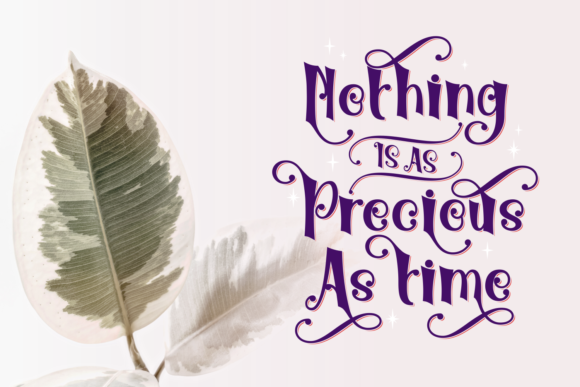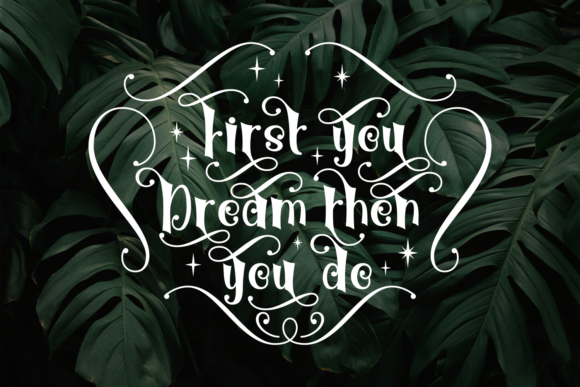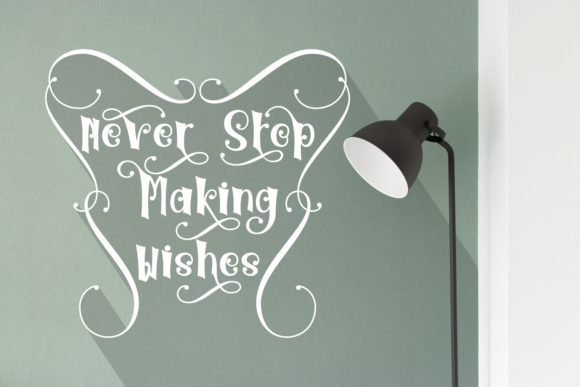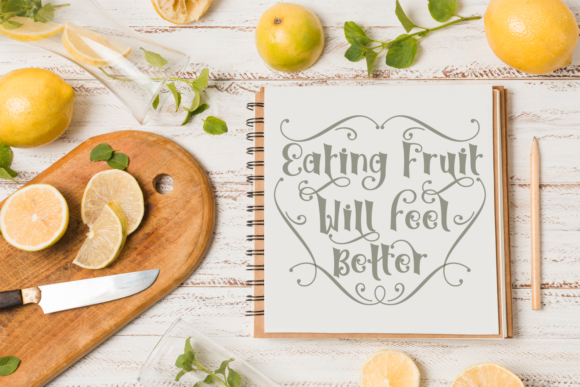
Unleash Your Creativity with Beat the Ordinary Font
Are you tired of using the same old fonts in your designs? Do you want to add a touch of uniqueness and personality to your projects? Look no further than the Beat the Ordinary Font! This playful, yet bold display font is perfect for designers and crafters who want to take their work to the next level.
What is Beat the Ordinary Font?
Beat the Ordinary is a modern display font that is designed to make a statement. With its bold and playful style, it’s perfect for adding a unique feel to any design idea. The font comes with amazing swashes that will take your designs to new heights. Whether you’re working on a logo, a poster, or a social media graphic, Beat the Ordinary Font is sure to turn heads.
Key Features of Beat the Ordinary Font
- Playful yet bold style: Beat the Ordinary Font has a unique and eye-catching style that’s perfect for making a statement.
- Amazing swashes: The font comes with a range of swashes that will add a touch of elegance and sophistication to your designs.
- Unique feel: Beat the Ordinary Font is designed to add a unique feel to any design idea, making it perfect for designers who want to stand out from the crowd.
Why Choose Beat the Ordinary Font?
There are many fonts on the market that claim to be unique and eye-catching, but Beat the Ordinary Font stands out from the rest. Here are just a few reasons why:
- High-quality design: Beat the Ordinary Font is designed with high-quality and attention to detail, making it perfect for professional designers.
- Versatile: The font is versatile and can be used in a range of design projects, from logos and posters to social media graphics and more.
- Unique style: The font has a unique style that’s sure to grab attention and make your designs stand out.
How to Use Beat the Ordinary Font
Using Beat the Ordinary Font is easy! Here are just a few tips to get you started:
- Pair it with a simple font: Beat the Ordinary Font is bold and playful, so it’s best paired with a simple font to create contrast.
- Experiment with swashes: The font comes with a range of swashes, so don’t be afraid to experiment and find the perfect one for your design.
- Use it for headlines: Beat the Ordinary Font is perfect for headlines and titles, where its bold and playful style can really shine.
Design Ideas Using Beat the Ordinary Font
Beat the Ordinary Font is perfect for a range of design projects, including:
- Logos: The font’s unique style makes it perfect for logos and branding projects.
- Posters: Beat the Ordinary Font is perfect for posters and flyers, where its bold and playful style can really grab attention.
- Social media graphics: The font is perfect for social media graphics, where its unique style can help your posts stand out.
- Invitations: Beat the Ordinary Font is perfect for invitations and event branding, where its elegant and sophisticated style can add a touch of class.
| Font Name | Beat the Ordinary Font |
| Author | Rifki (7ntypes) |
In conclusion, Beat the Ordinary Font is a unique and eye-catching display font that’s perfect for designers and crafters who want to take their work to the next level. With its bold and playful style, amazing swashes, and easy-to-use design, it’s the perfect addition to any design project. So why settle for ordinary fonts when you can beat the ordinary with this amazing font?